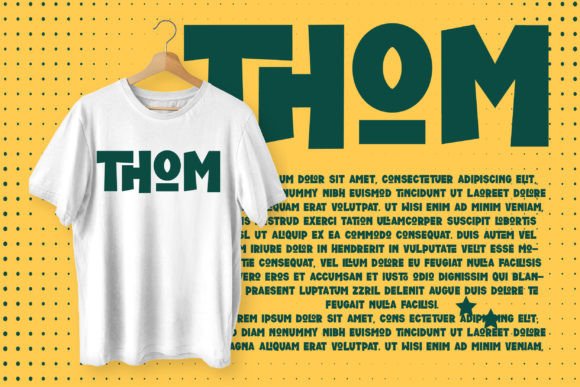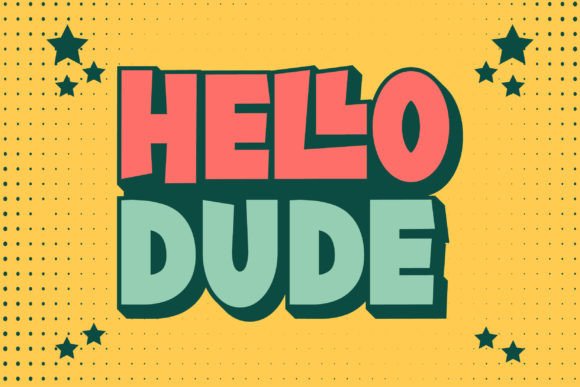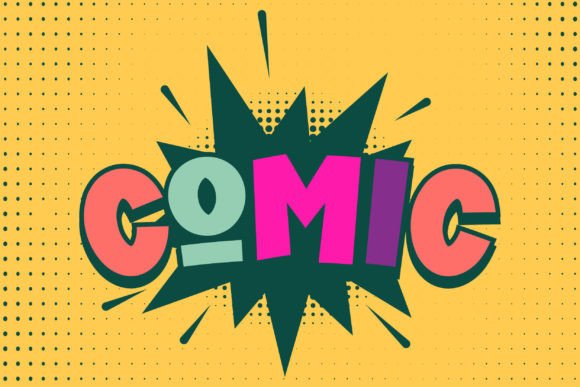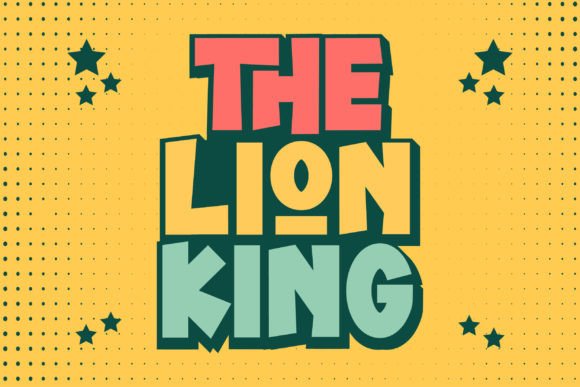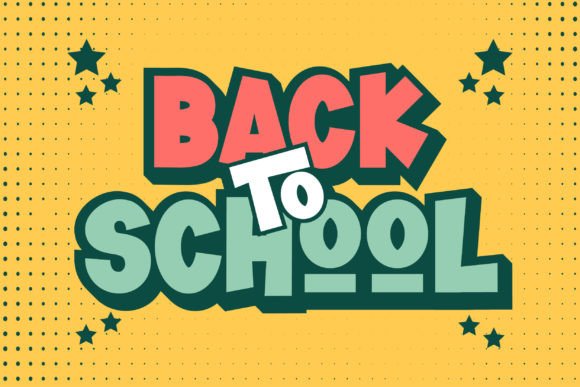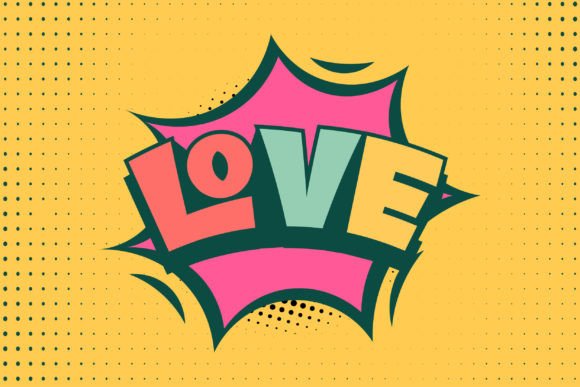
Introduction to Hey Boy Font
Hey Boy is a vibrant display typeface imbued with an infectious, joyful charm.
Perfectly crafted for injecting a sense of fun into your creative endeavors, Hey Boy promises to enhance your designs with an exciting touch that you’ll unquestionably adore Step into a world of creativity and delight by embracing the whimsy of Hey Boy.